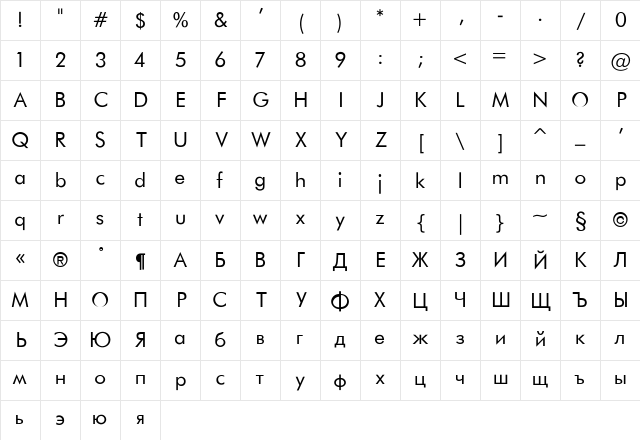
Futura_Book-Normal Regular
Design Context for Futura_Book-Normal
Futura_Book-Normal has a distinctly futuristic character, with geometric precision and clean angles that feel at home in technology, gaming, and sci-fi contexts.
Pro Tip: Try Futura_Book-Normal with generous letter-spacing in UI labels and navigation - the geometric forms benefit from room to breathe.